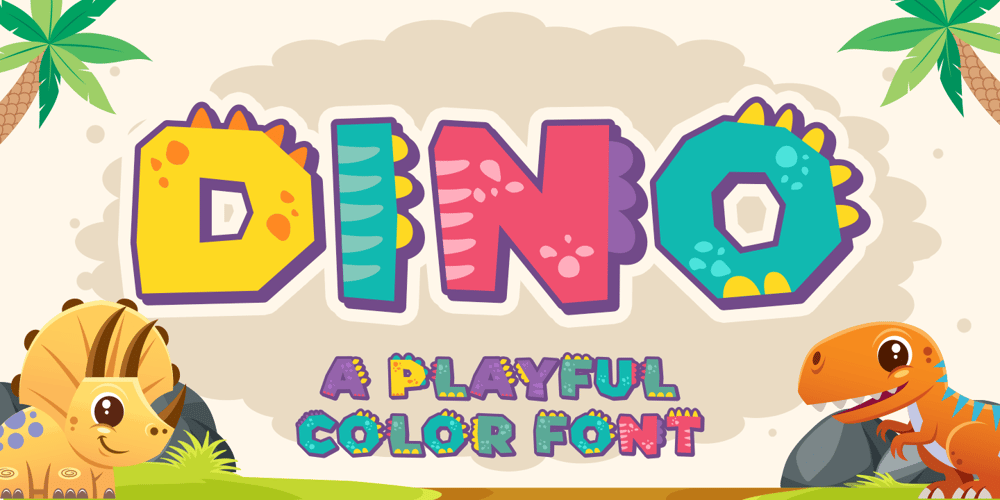
Dino
Dino font
Dino Font Family was designed by Bangkit Tri Setiadi and published by Blankids. Dino contains 1 styles and family package options. Hello,Are you looking for a SVG font? Do you want of creating Something that stand out and inspire creativity, imagination, and endless fun? Wait no more, we will give you the best choice.Dino a SVG Color Font Inspiring from Playful typography. This font is perfect for a design that makes it more attractive and playful. made with a very good level of aesthetics making this font suitable for book cover, poster, packging, merchandise, logotype and much more.